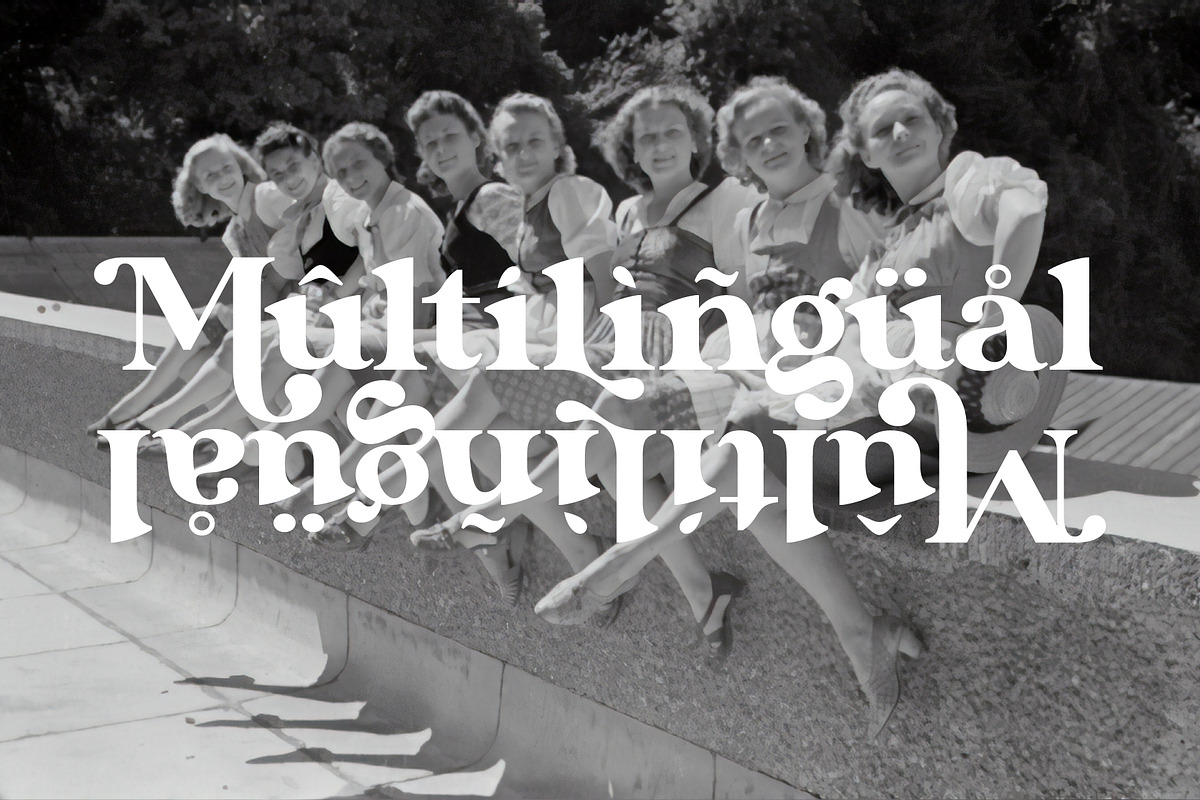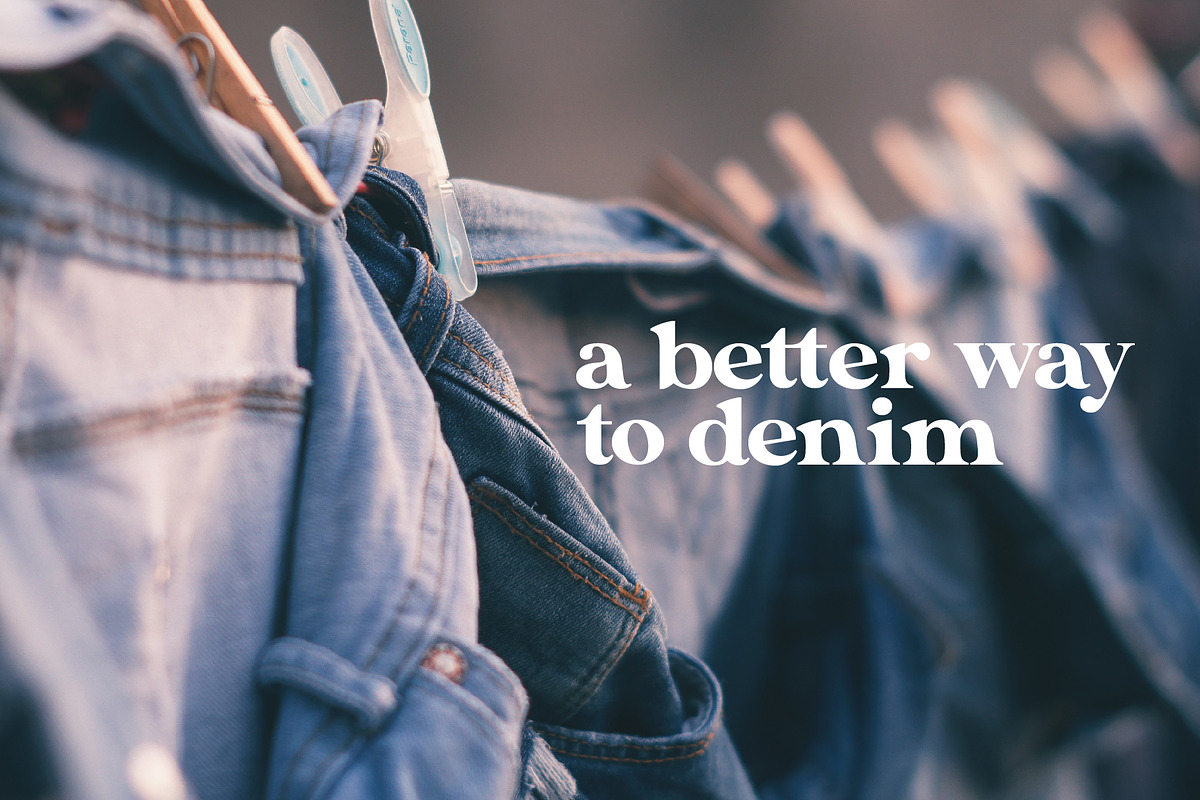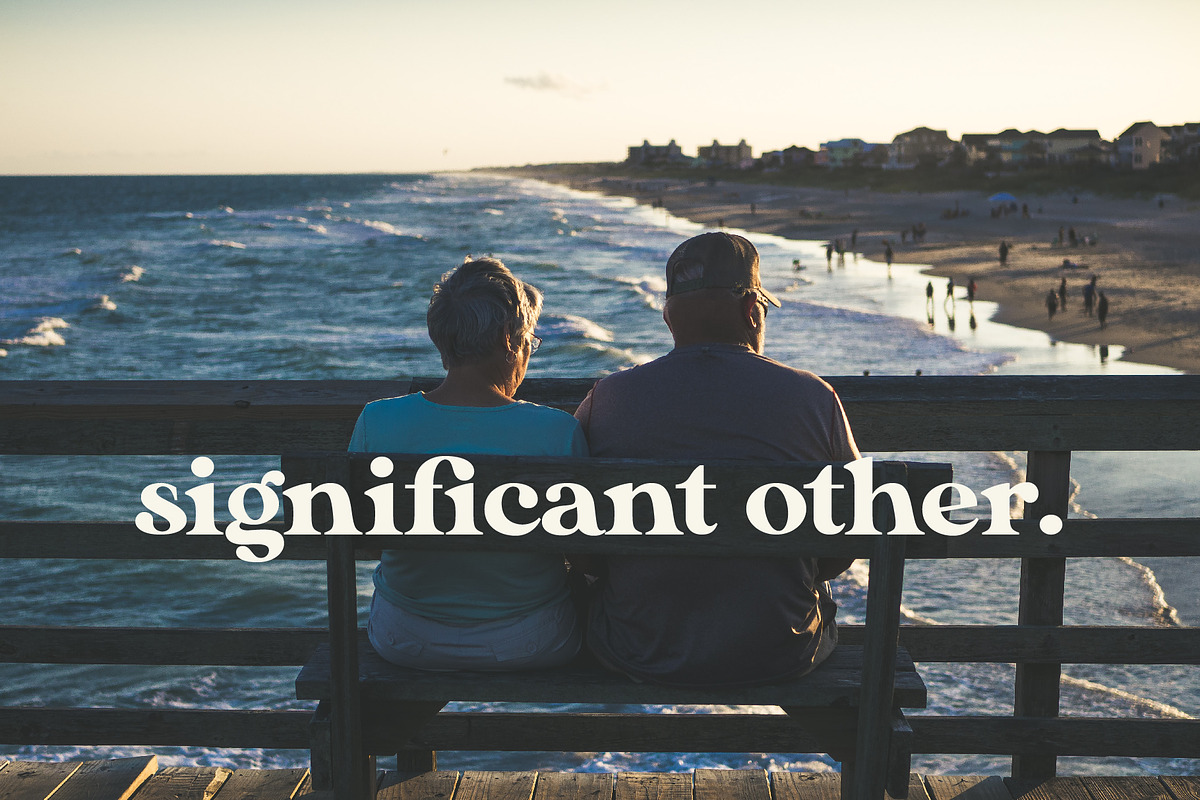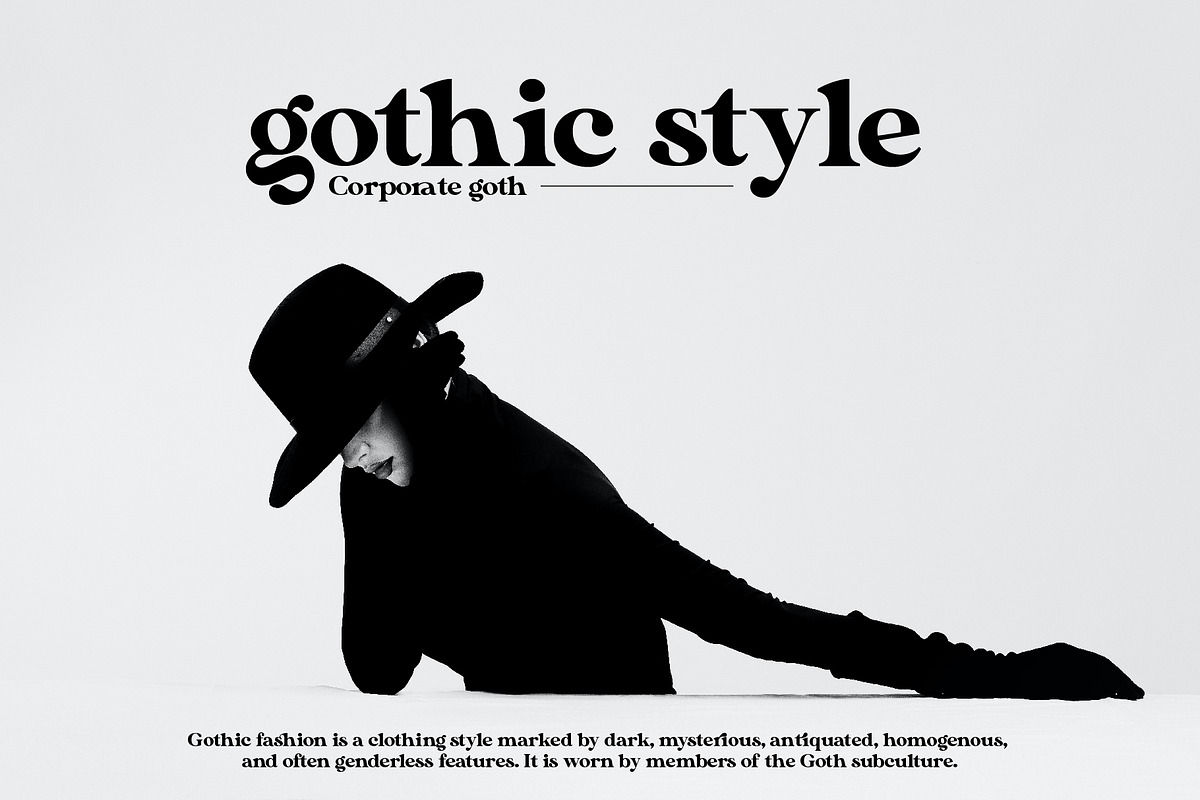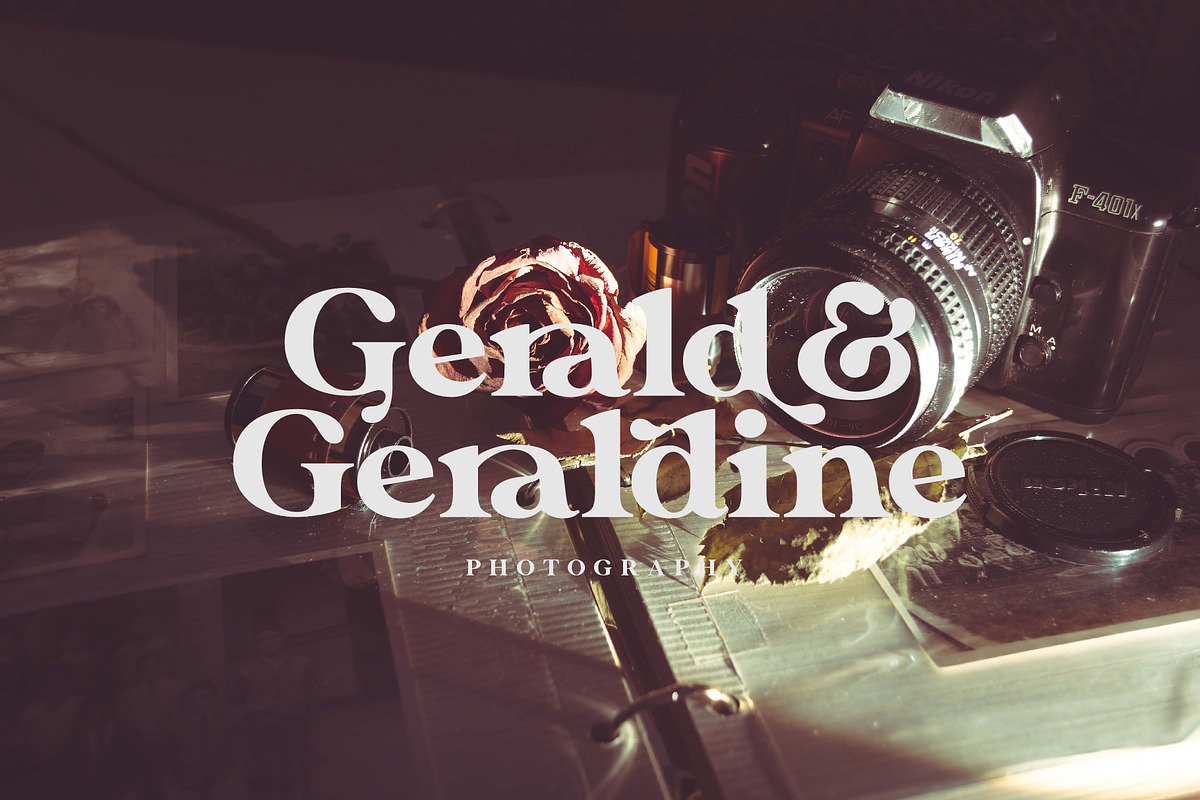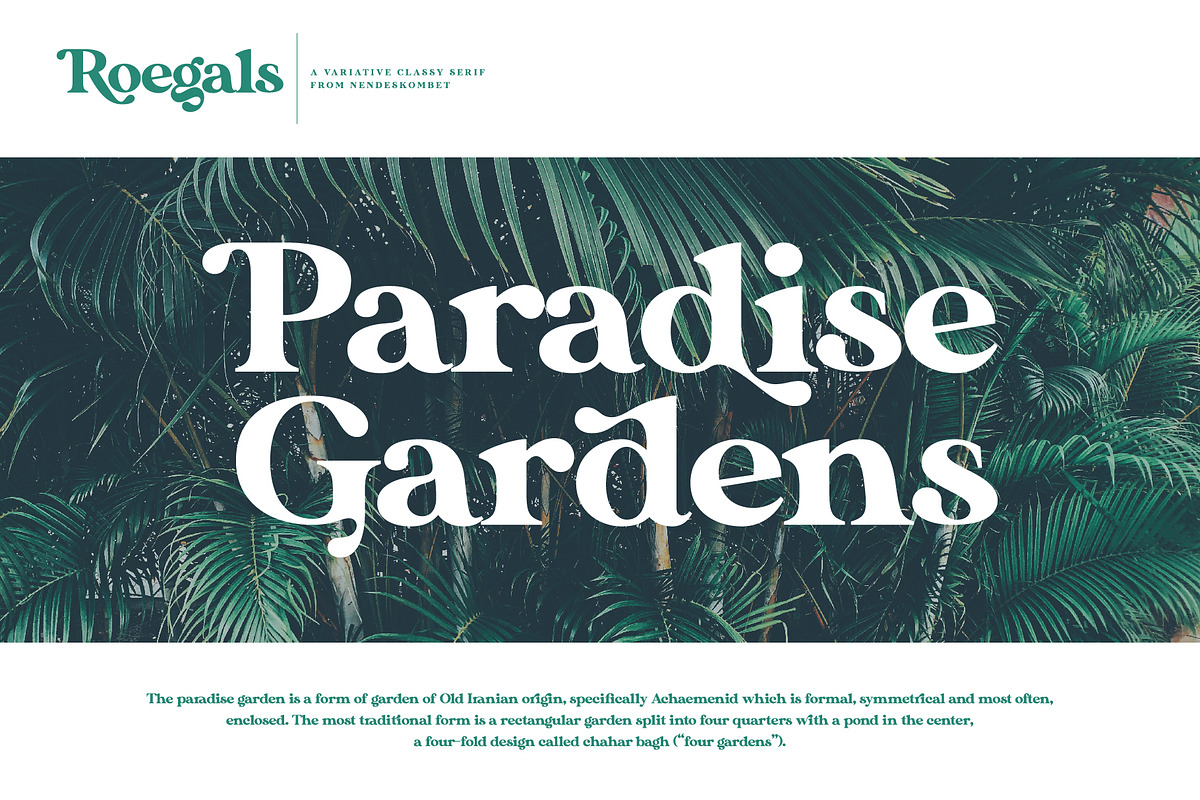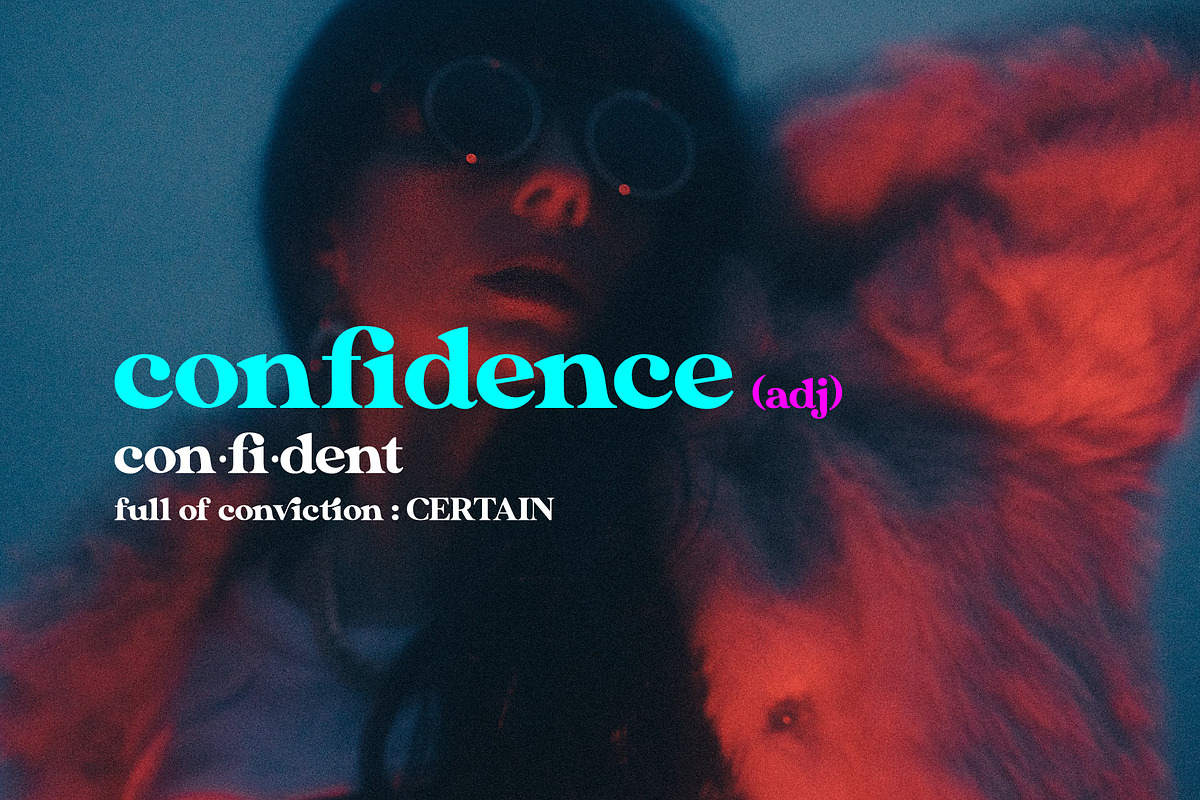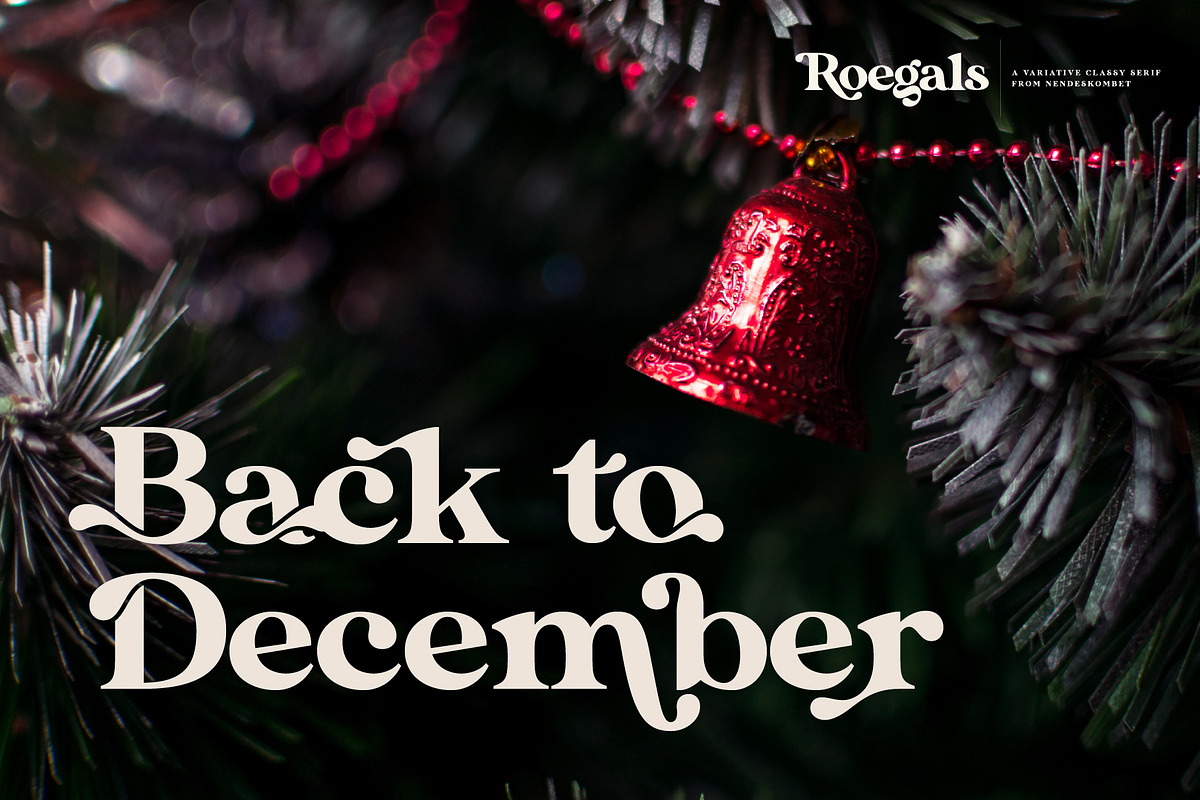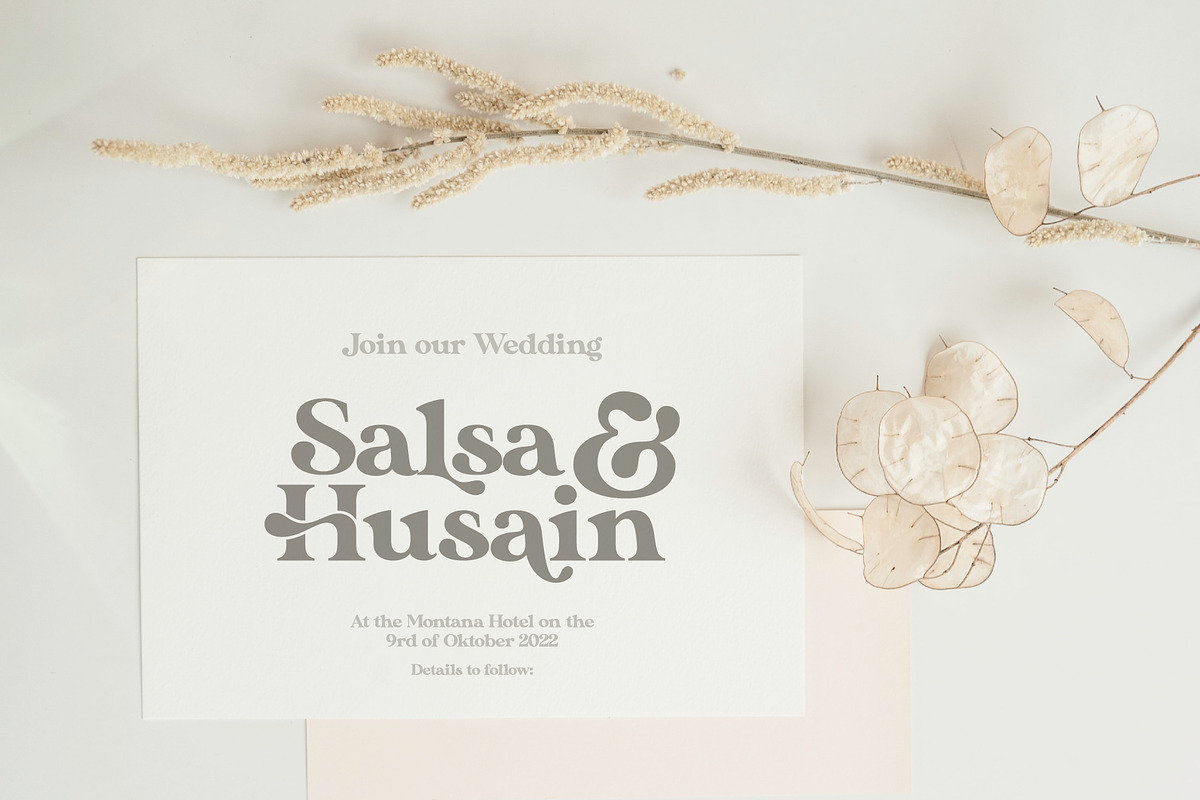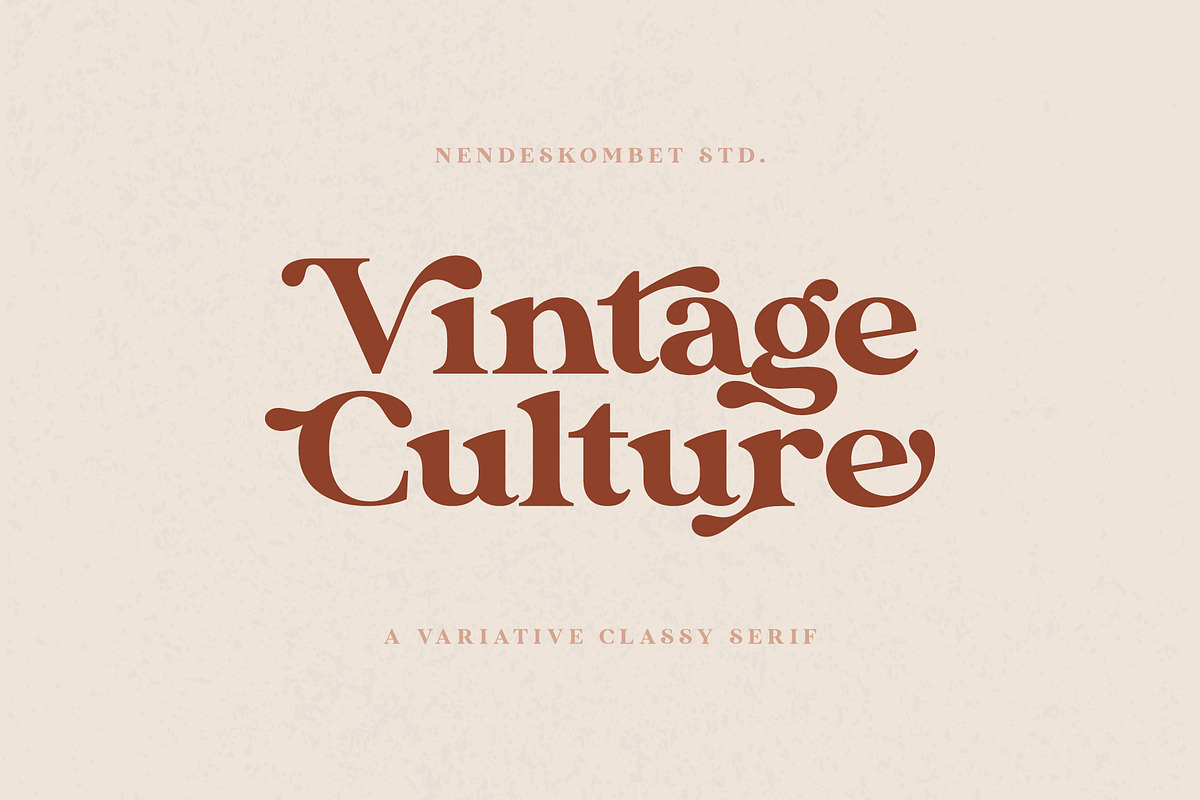
Roegals - A Variative Classy Serif
Introducing: Roegals! A roly-poly, playful font with a touch of sophisticated taste. Roegals is equipped with a lot of variations, presenting to you the experience of exploring a whole bunch of styles. Roegals is an extremely adaptable typeface that may be used for a variety of projects, including bold magazine graphics, wedding invites, branding, poster design, and more.
Roegals is also included full set of :
- Uppercase and Lowercase Letters
- Multilingual Symbols
- Many Alternates (from two up to four alternates for each alphabet)